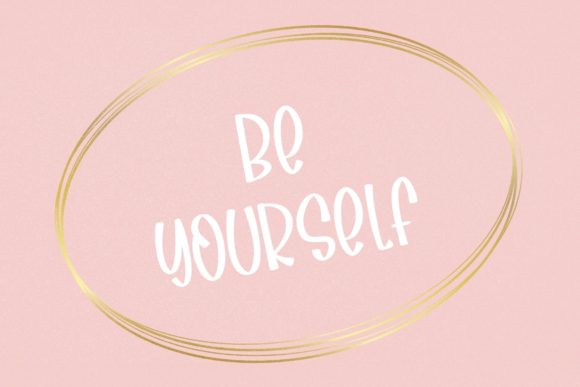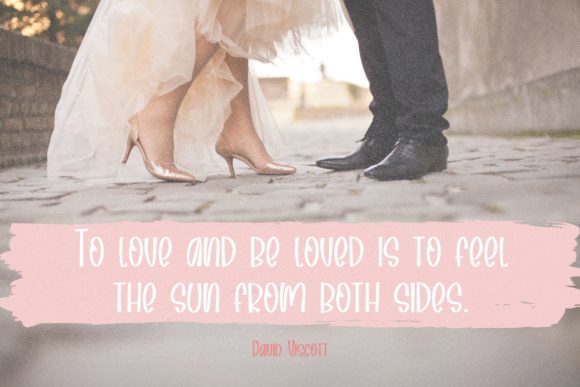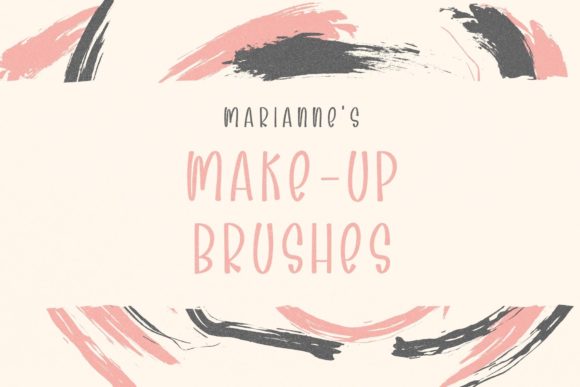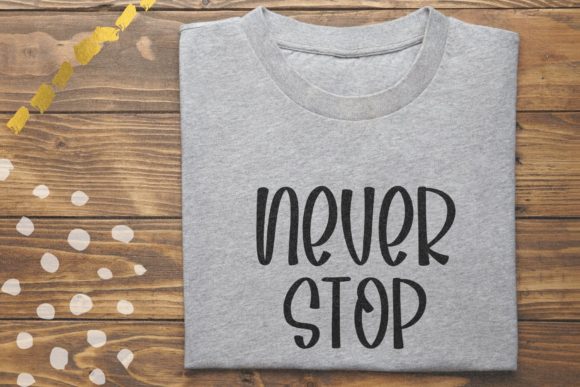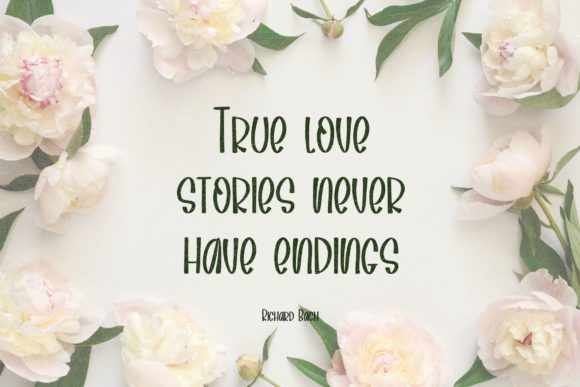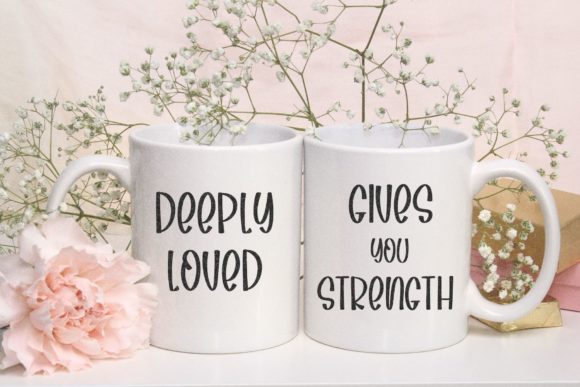
Christmas Tree Font: A Festive Handwritten Font to Brighten Up Your Holiday Designs
Are you looking for a font that captures the spirit of the holiday season? Look no further than the Christmas Tree Font! This adorable, festive handwritten font is perfect for designers and crafters who want to add a touch of holiday cheer to their projects. In this article, we’ll take a closer look at the Christmas Tree Font, its features, and how you can use it to create stunning holiday designs.
What is Christmas Tree Font?
Christmas Tree Font is a beautifully designed handwritten font that is inspired by the magic of the holiday season. Its playful and festive letters are perfect for creating holiday-themed designs, from Christmas cards and invitations to decorations and social media graphics. The font is designed to be easy to read and use, making it perfect for designers and crafters of all skill levels.
Features of Christmas Tree Font
So, what makes Christmas Tree Font so special? Here are just a few of its features:
- Adorable and festive design: The Christmas Tree Font features a playful and festive design that is sure to bring a smile to anyone’s face.
- Handwritten style: The font has a beautiful handwritten style that gives it a personal and unique touch.
- Easy to read: Despite its playful design, the font is easy to read and use, making it perfect for a variety of projects.
- Versatile: The Christmas Tree Font can be used for a wide range of projects, from Christmas cards and invitations to decorations and social media graphics.
How to Use Christmas Tree Font
Now that we’ve covered the features of Christmas Tree Font, let’s talk about how you can use it in your holiday designs. Here are a few ideas to get you started:
- Christmas cards and invitations: Use the Christmas Tree Font to create beautiful and festive Christmas cards and invitations.
- Holiday decorations: Add a touch of holiday cheer to your decorations with the Christmas Tree Font.
- Social media graphics: Use the font to create stunning social media graphics that will help you stand out during the holiday season.
- DIY projects: The Christmas Tree Font is perfect for DIY projects, such as making holiday gifts, decorations, and more.
Tips for Using Christmas Tree Font
Here are a few tips for using the Christmas Tree Font in your holiday designs:
- Pair it with other fonts: Experiment with pairing the Christmas Tree Font with other fonts to create a unique and interesting look.
- Use it with holiday colors: Use the Christmas Tree Font with traditional holiday colors, such as red and green, to create a festive look.
- Add decorations: Add decorations, such as holly or snowflakes, to your designs to make them more festive.
The Christmas Tree Font is a beautiful and festive handwritten font that is perfect for designers and crafters who want to add a touch of holiday cheer to their projects. With its adorable and festive design, easy-to-read style, and versatility, this font is sure to become a favorite in your design collection. So why wait? Download the Christmas Tree Font today and start creating stunning holiday designs!
This Christmas Tree Font will brighten up any holiday design you wish to create! It’s perfect for a wide range of projects, from Christmas cards and invitations to decorations and social media graphics. So go ahead, get creative, and make this holiday season one to remember!